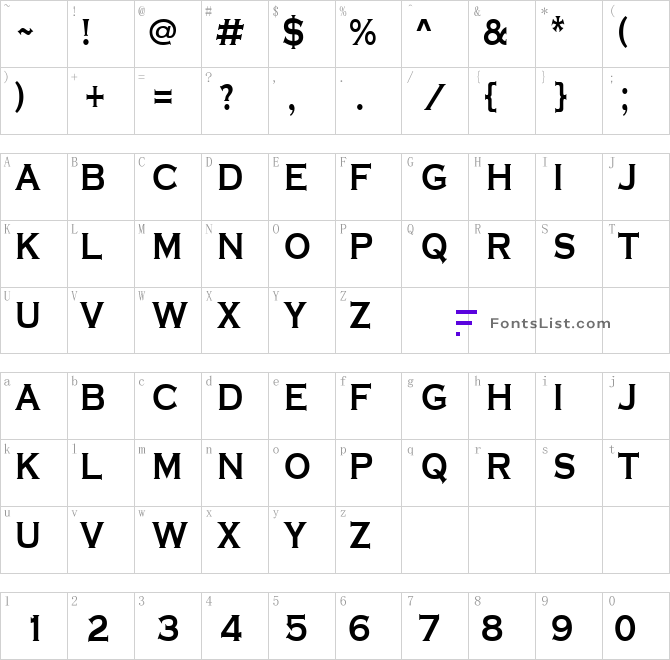
- Font Name:a_CopperGothTitul
- Subfamily:a_CopperGothTitul Bold
- Full Name:a_CopperGothTitul Bold
a_CopperGothTitul-Bold.ttf is a very beautiful artistic font, a_CopperGothTitul-Bold.ttf is widely used in the design and printing of various books and pictures,a_CopperGothTitul-Bold.ttf has a strong visual impact,a_CopperGothTitul-Bold.ttf is a commonly used font in newspapers, magazines and books, and is used in posters, e-commerce Poster design, store design, logo design, font design and other fields.a_CopperGothTitul-Bold.